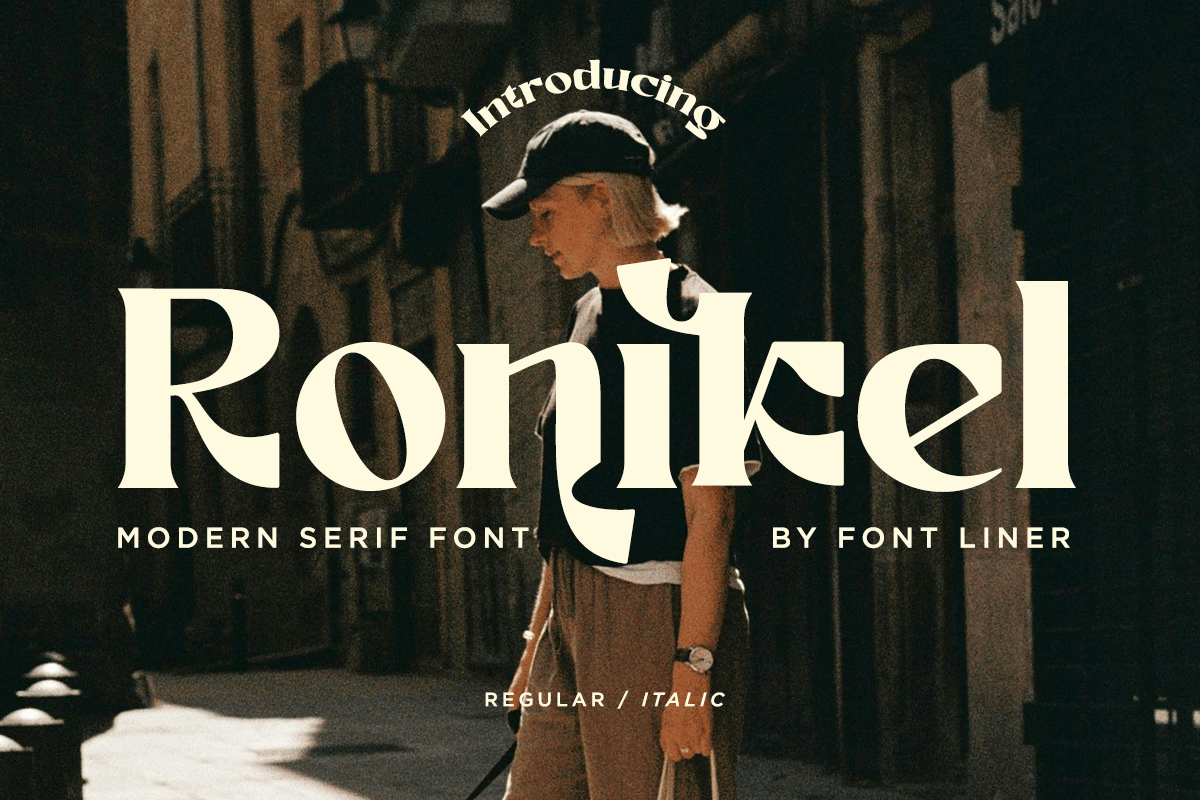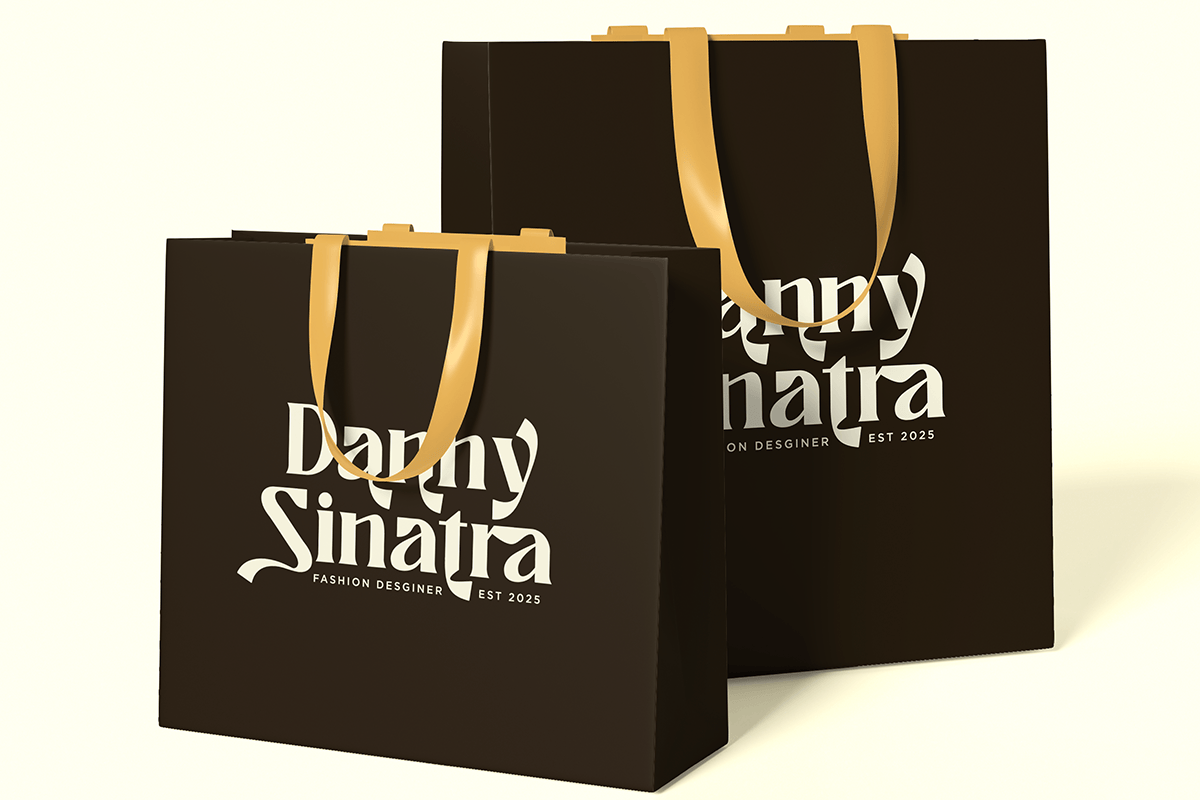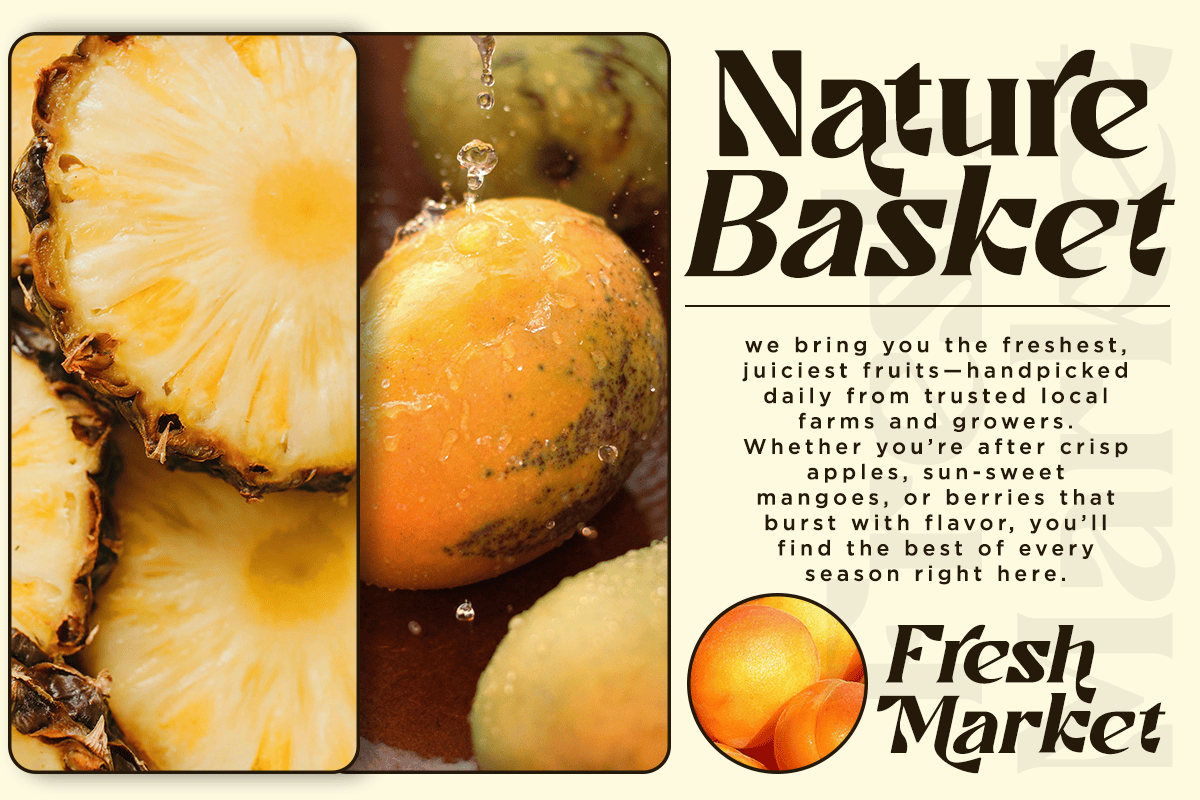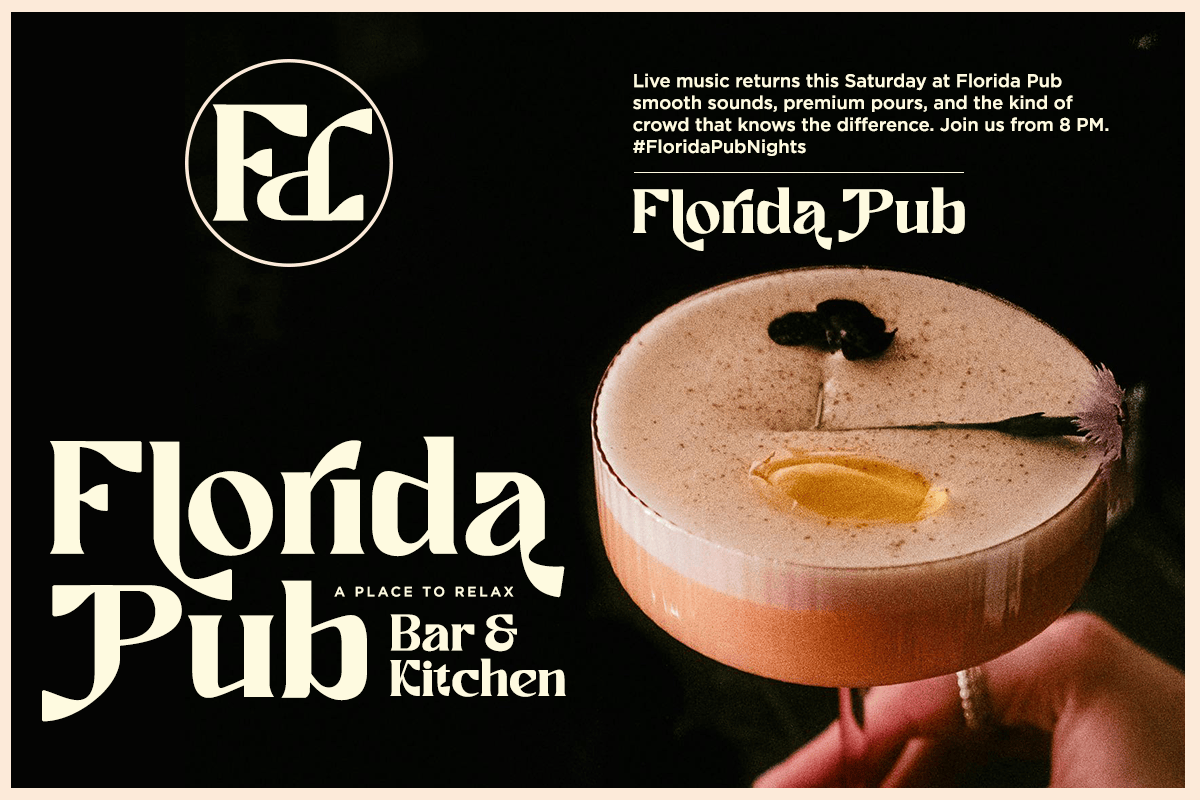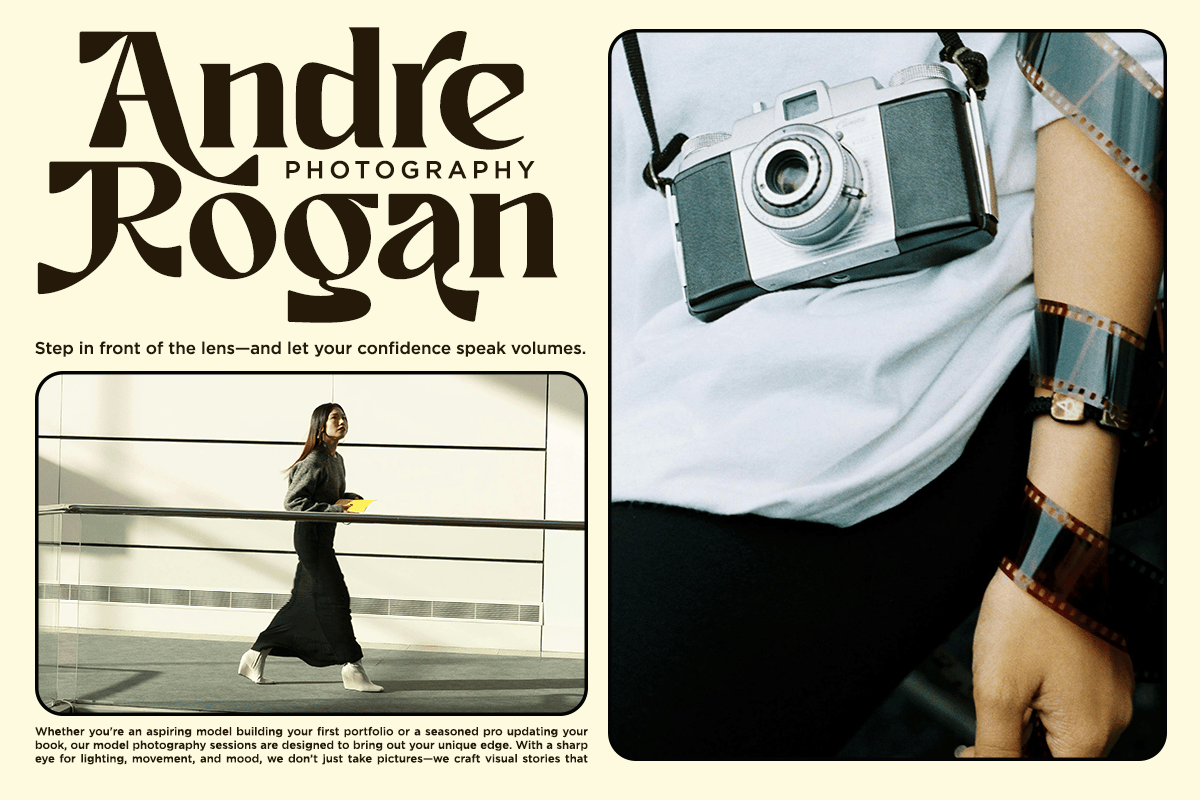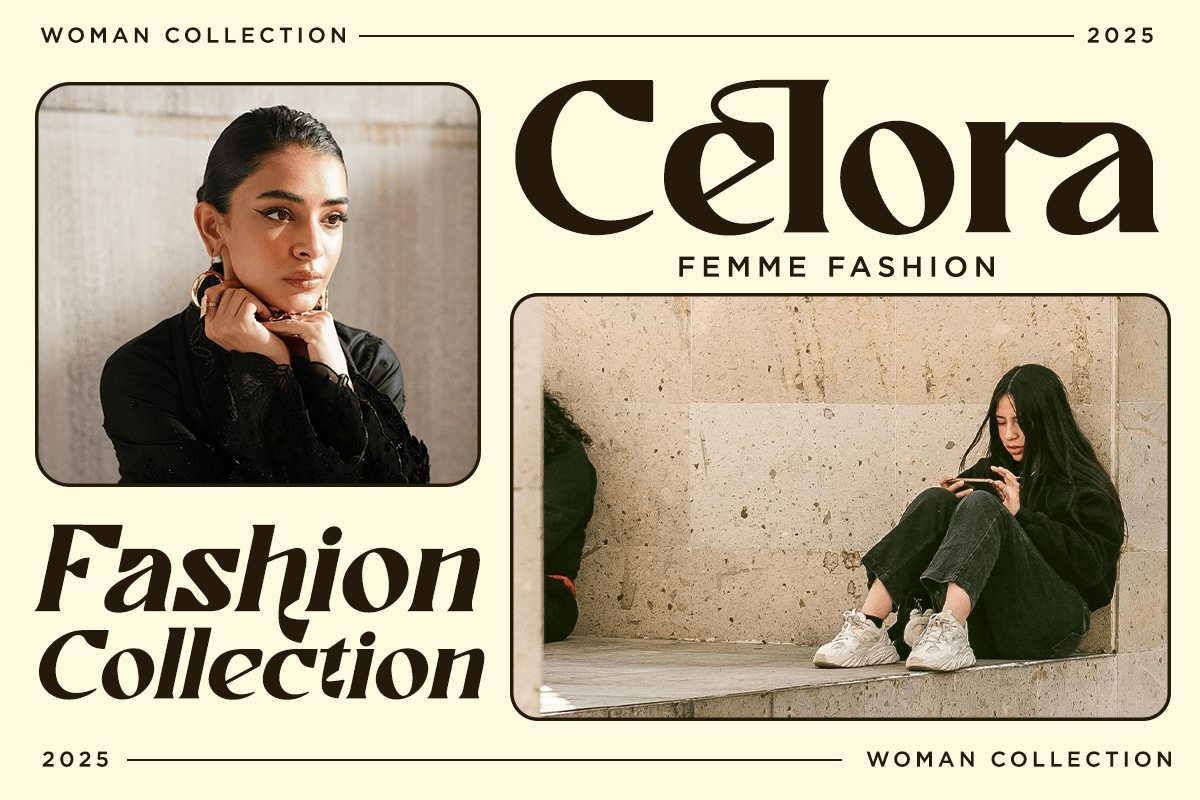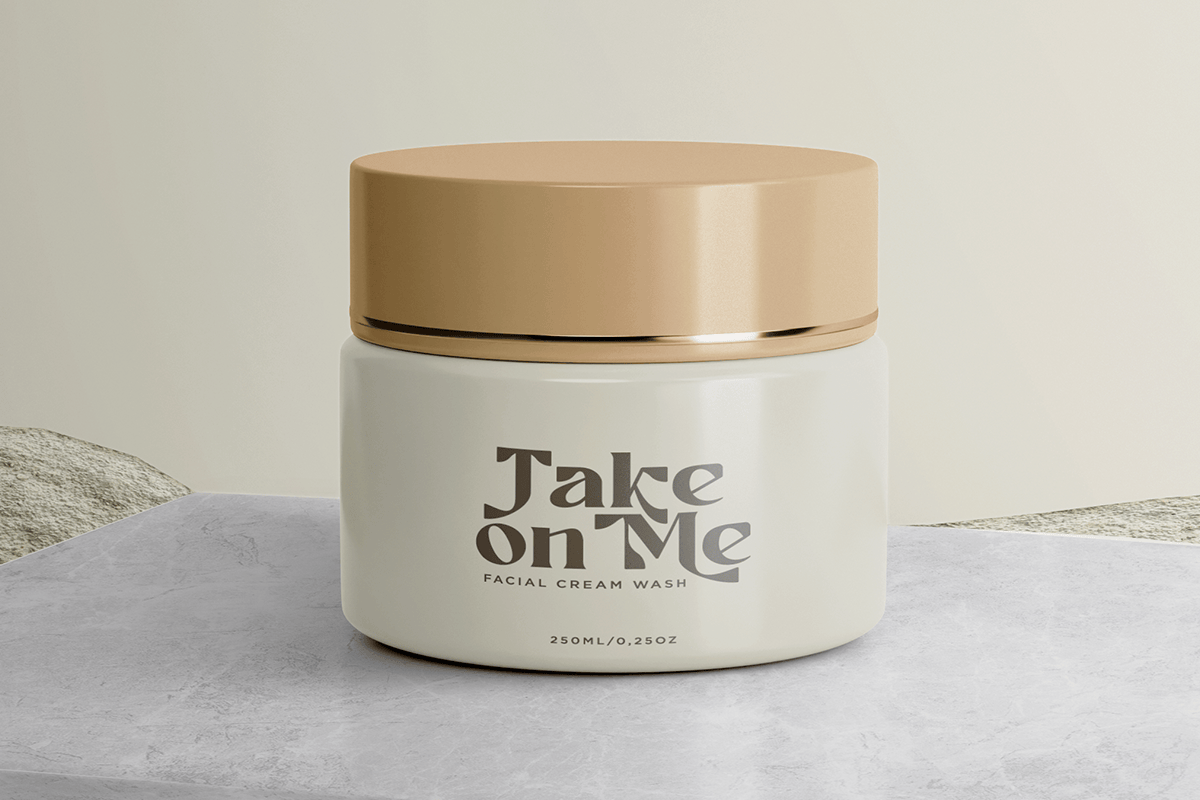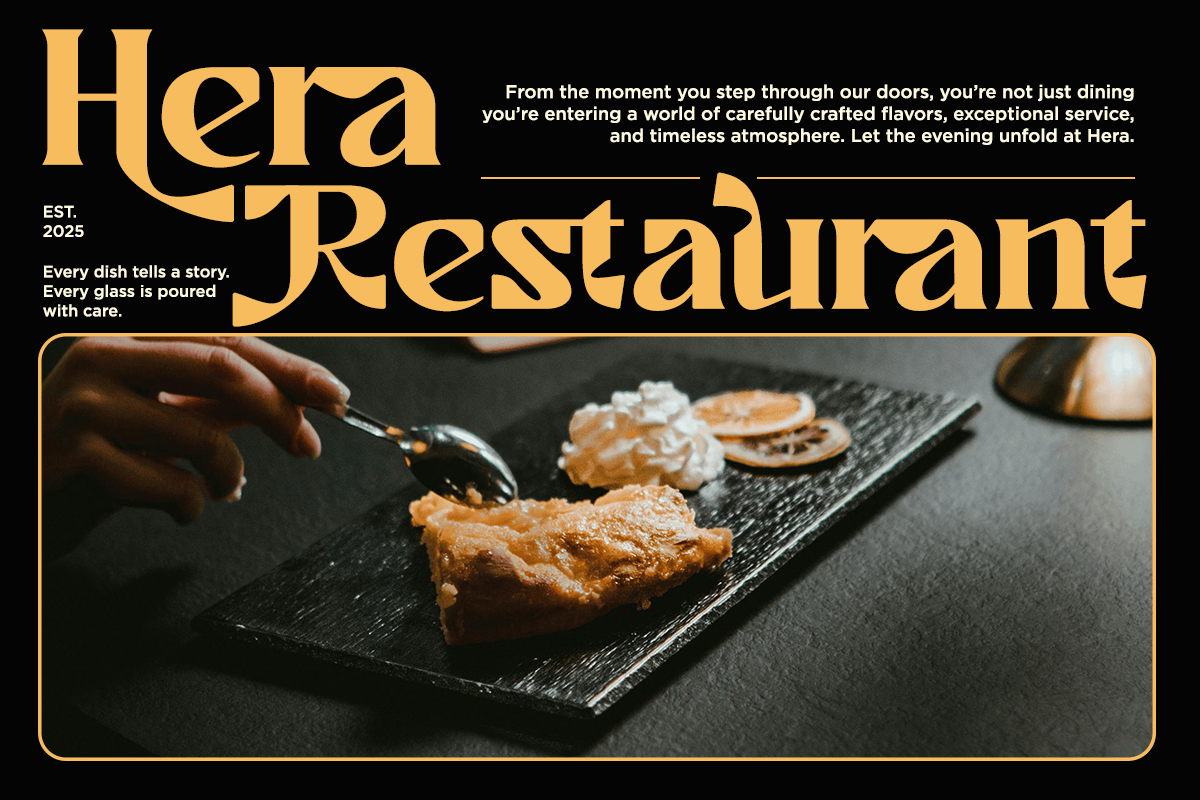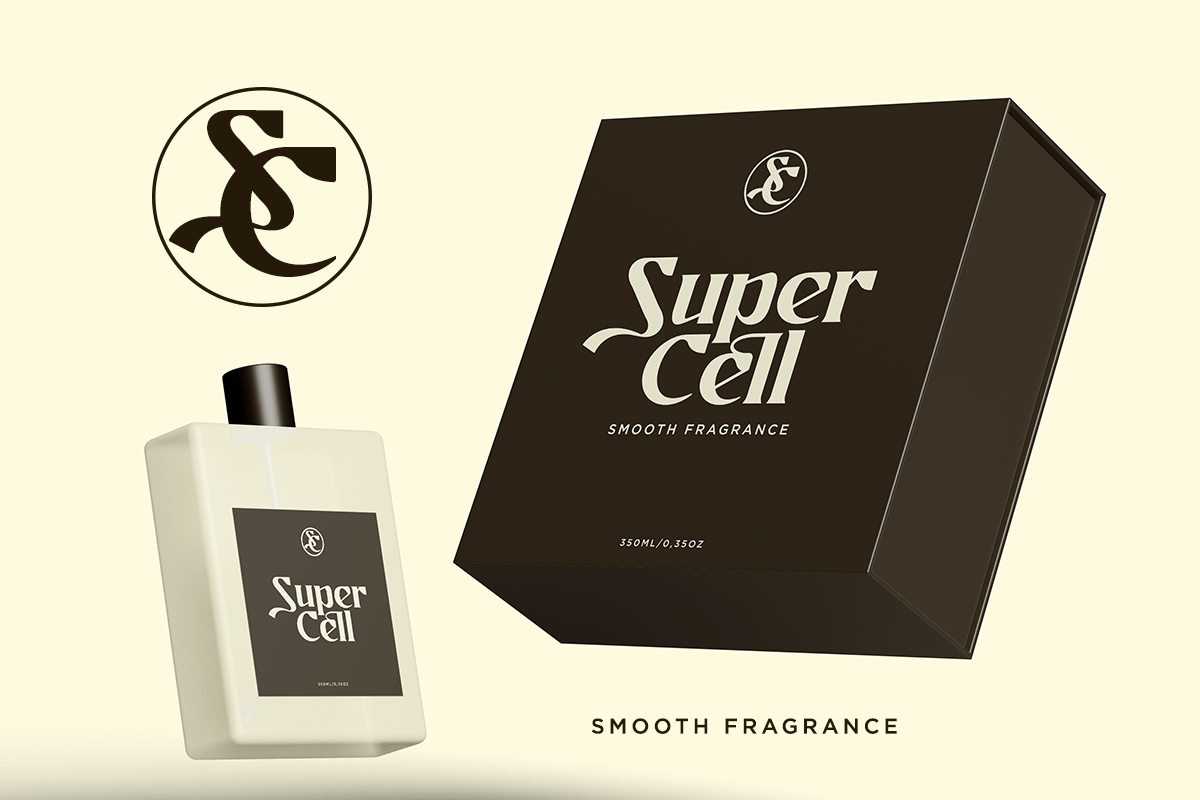
Ronikel – Modern Serif Font
Ronikel is a sophisticated modern serif font that combines timeless elegance with contemporary character. Featuring refined curves, stylish ligatures, and beautifully crafted alternate characters, it creates a luxurious visual presence perfect for premium branding and editorial design. Its balanced contrast and distinctive letterforms make every word feel graceful, memorable, and full of personality.
Designed for fashion brands, luxury packaging, restaurants, cafés, cosmetic labels, photography, magazines, invitations, social media, and high-end visual identities, Ronikel brings a polished and premium aesthetic to every project. Whether used for bold headlines or elegant logotypes, it delivers a professional appearance while maintaining excellent readability across print and digital applications.
Ronikel includes uppercase and lowercase letters, stylistic alternates, ligatures, multilingual support, numerals, punctuation, and symbols, giving designers the flexibility to create unique typography with ease. Perfect for logos, branding systems, packaging, editorials, advertising, wedding projects, boutique businesses, and luxury product presentations, Ronikel is the ideal serif font for designers seeking elegance with a modern touch.
– Stylistic alternates
– Uppercase, Lowercase & Ligatures